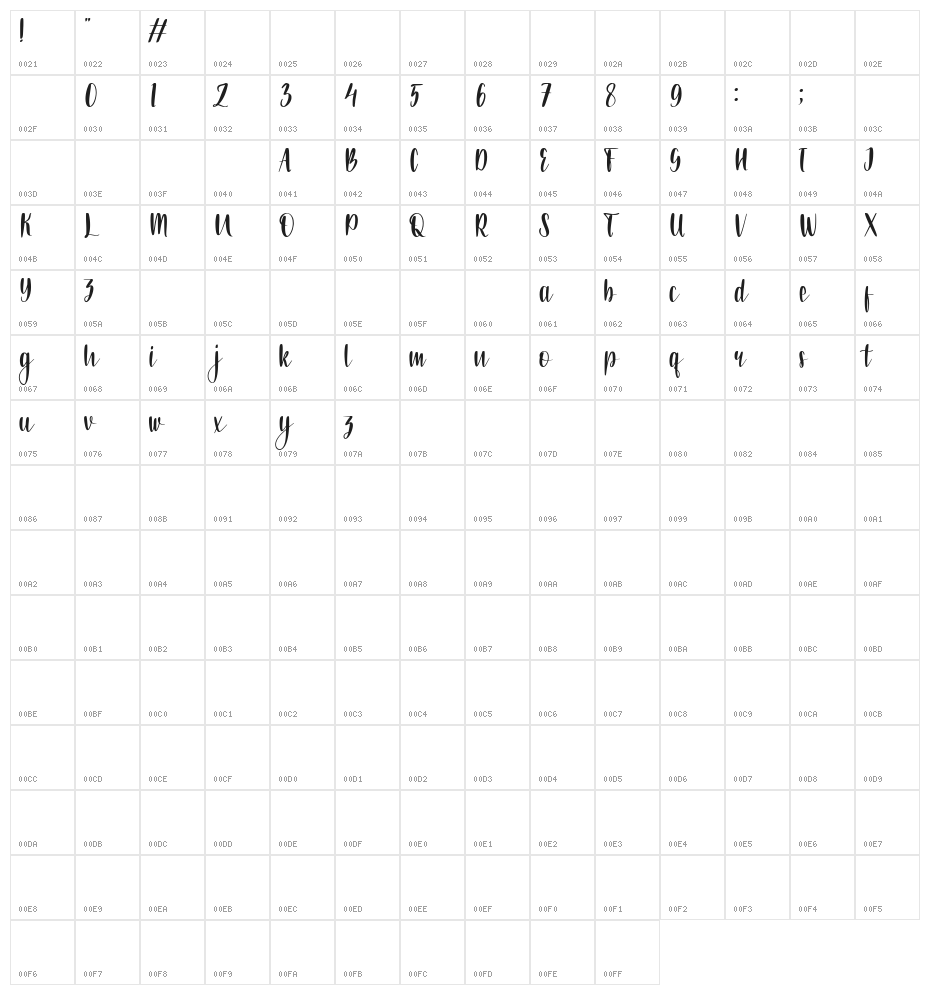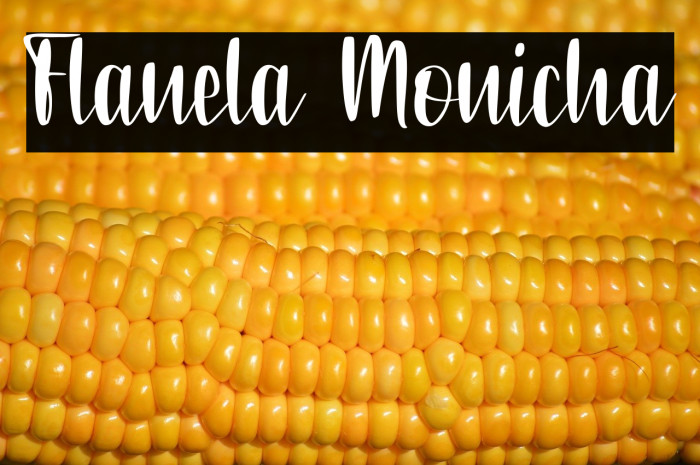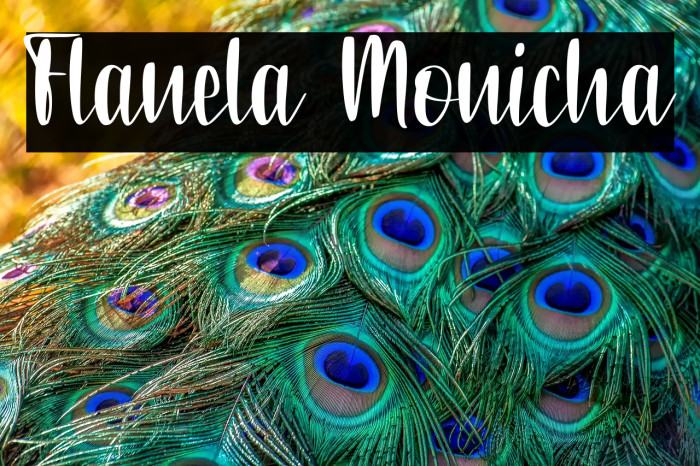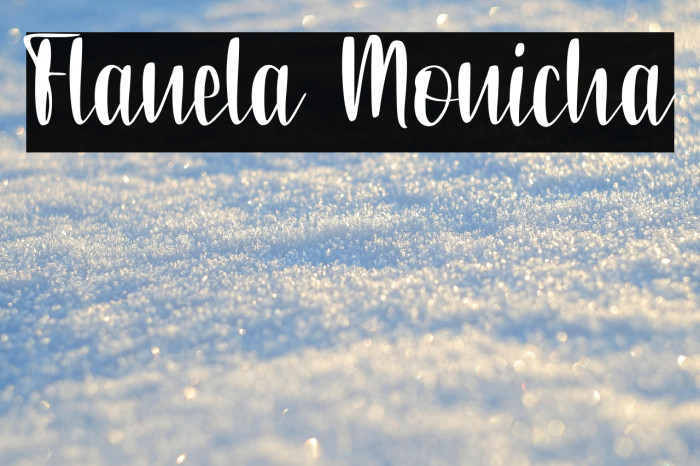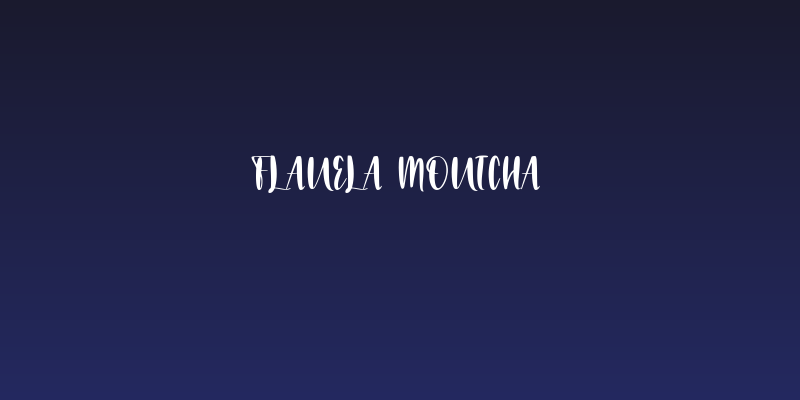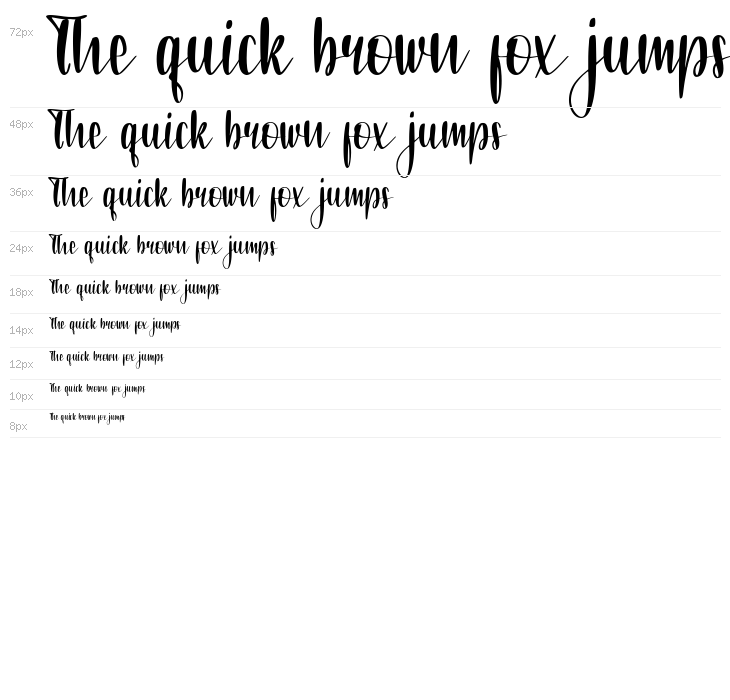
Flanela Monicha Font
Flanela Monicha Description
This font exudes a lively and elegant script style, characterized by its flowing, cursive letterforms that mimic the fluidity of handwriting. The uppercase letters are bold and expressive, with sweeping curves and flourishes that add a touch of sophistication. The lowercase letters maintain a consistent style, with elongated ascenders and descenders that enhance the font's graceful appearance. The numerals are designed to match the overall aesthetic, featuring similar curves and a slightly playful touch. Special characters are seamlessly integrated, maintaining the font's cohesive look. This font is ideal for projects that require a personal and artistic touch, such as invitations, greeting cards, or branding materials.
| Proposed Projects | Ideal for invitations, greeting cards, branding, and artistic projects. |